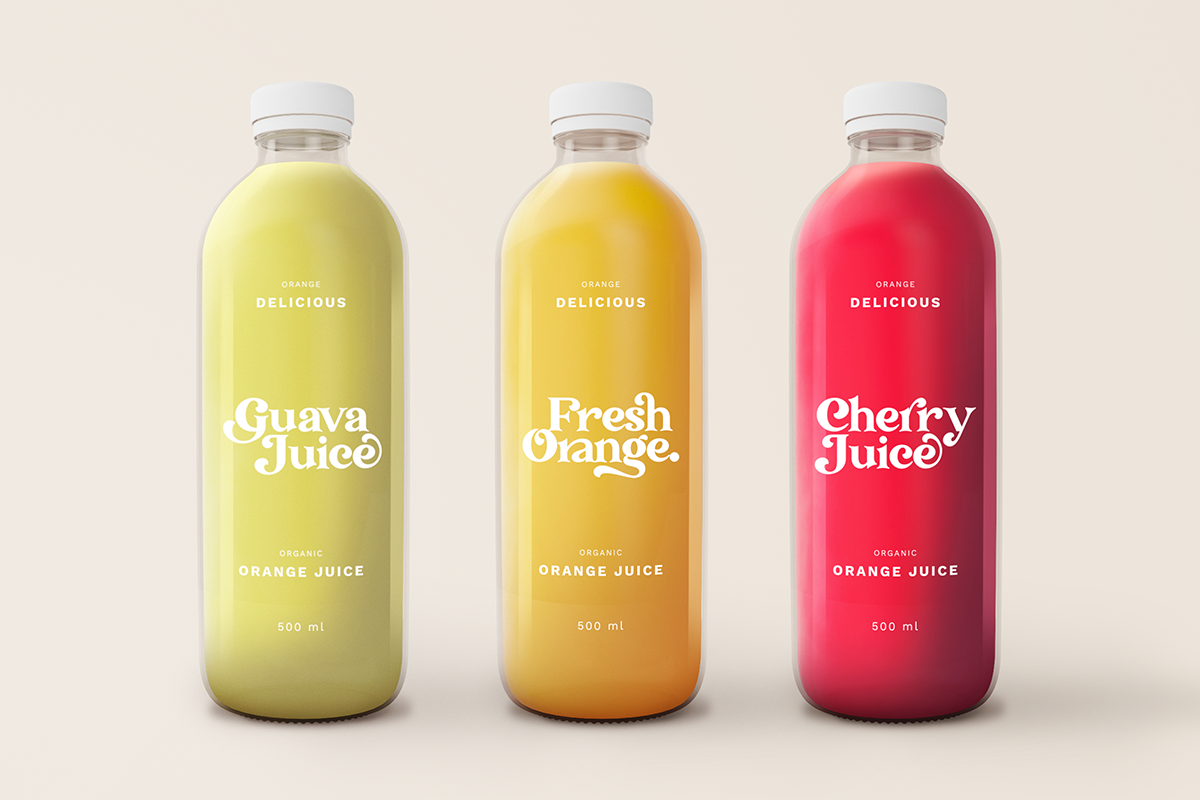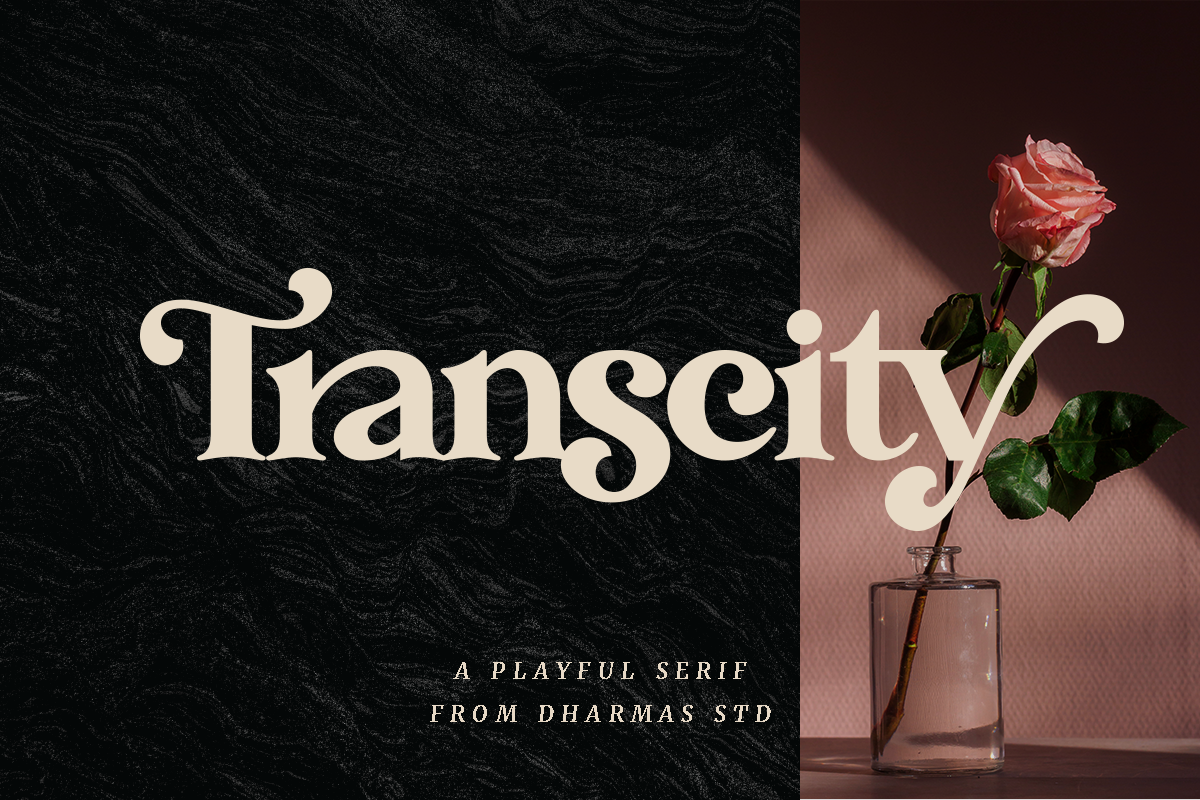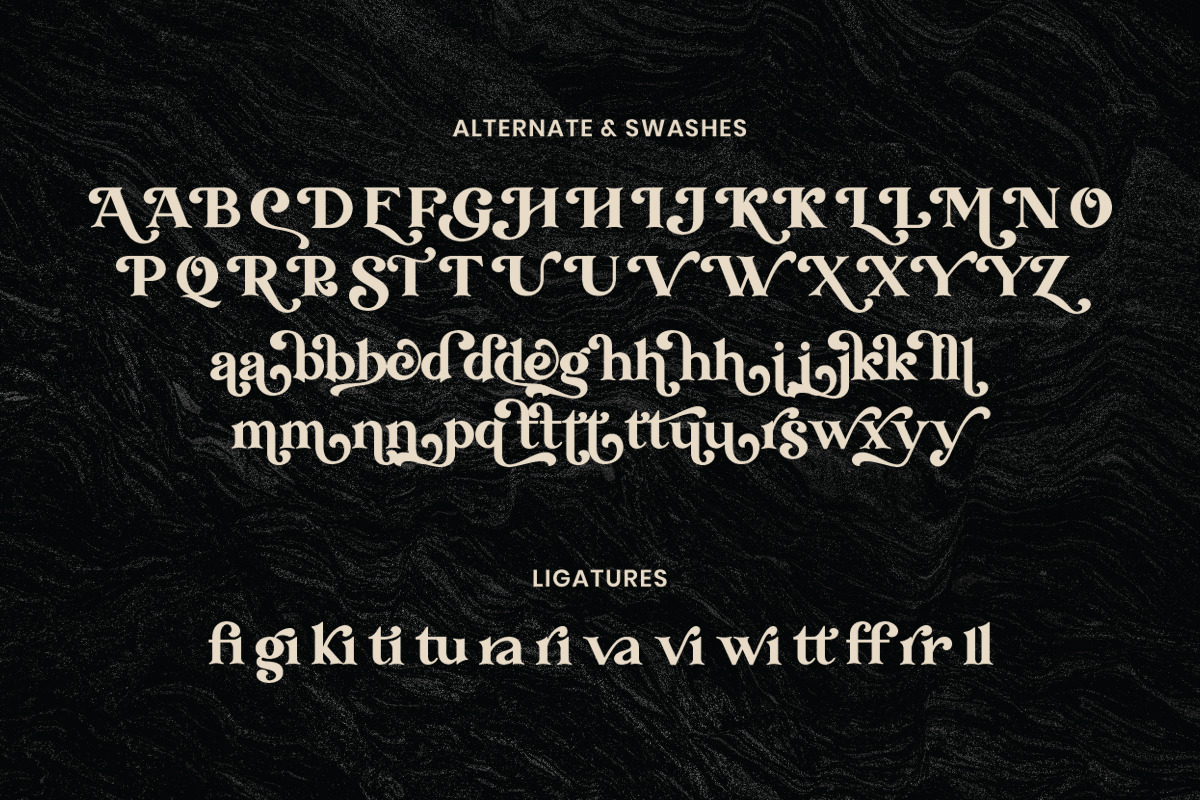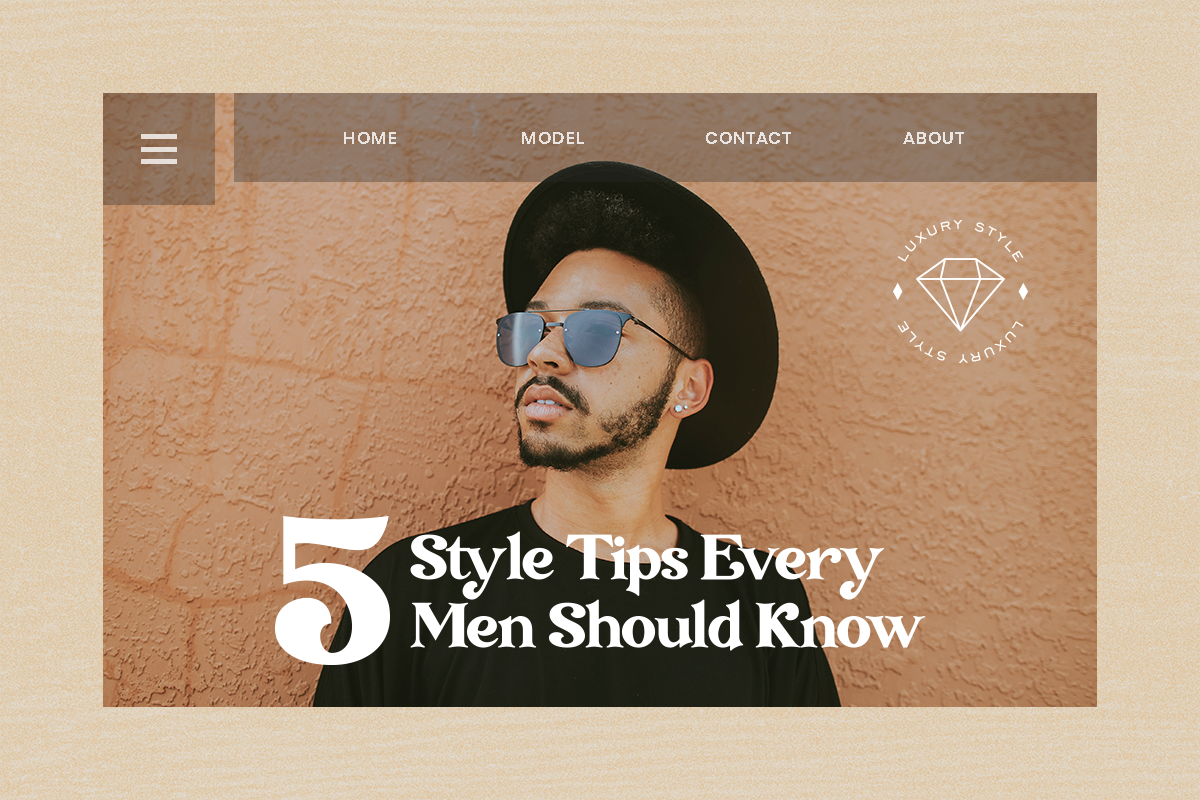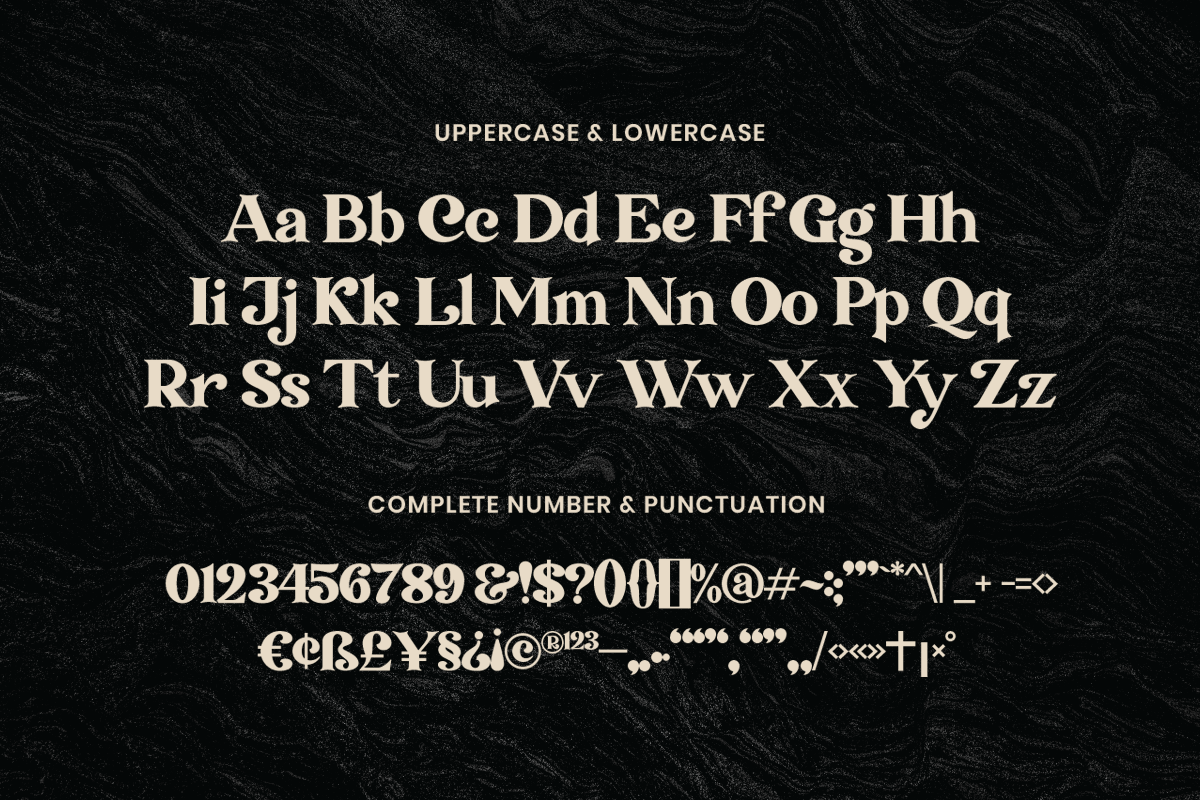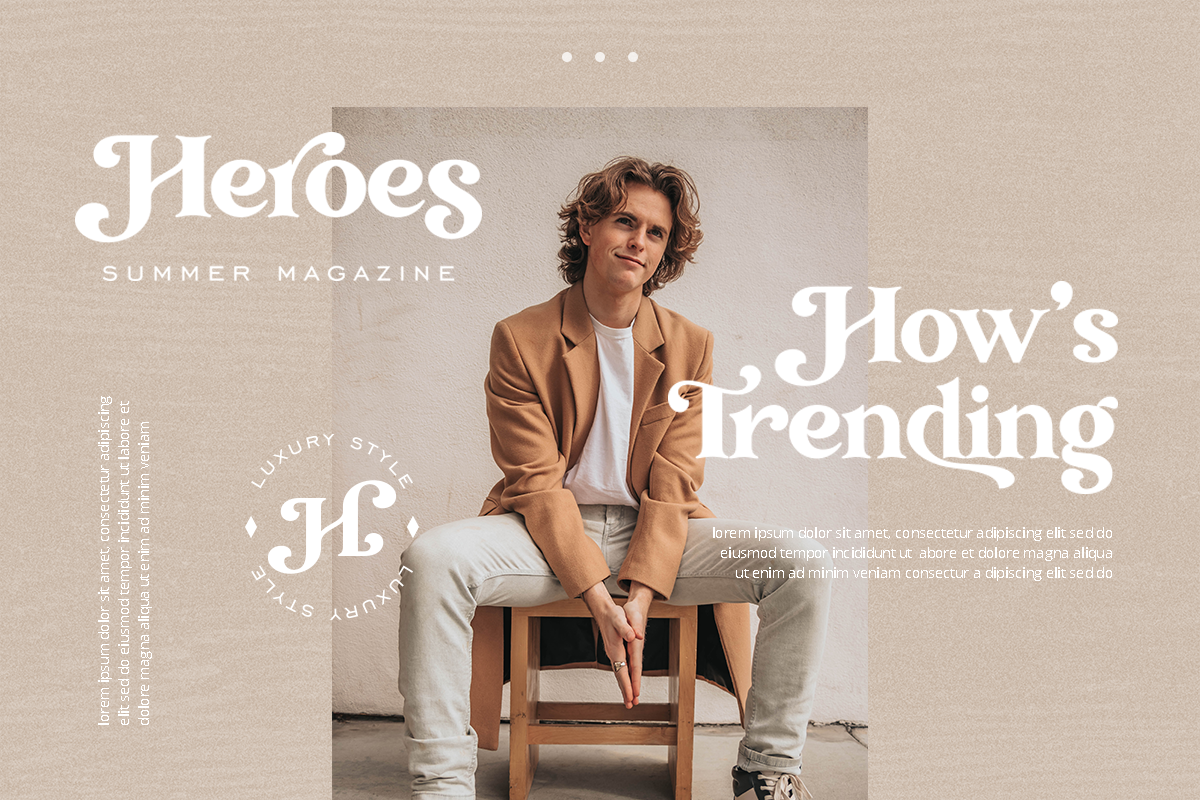
Transcity - A Playful Serif
Transcity is a serif display font designed for logos, branding, packaging, editorial layouts, social media graphics, and marketing materials. With more than 100 decorative swashes, multilingual support, and PUA encoding, it provides flexible typography for creating brand identities, product packaging, restaurant and café branding, invitations, book covers, labels, and digital content.
Transcity Font Features:
1 Style: Regular
90+ Swash, Alternate and Ligatures
Letters, numbers, symbols, punctuation, special alternates
PUA Encoded Characters, fully accessible without additional design software
Multilingual Characters available for:
Afrikaans, Albanian, Asu, Basque, Bemba, Bena, Breton, Chiga, Cornish, Dutch, English, Estonian, Filipino, Finnish, Friulian, Galician, German, Gusii, Indonesian, Irish, Italian, Kabuverdianu, Kalenjin, Kinyarwanda, Luo, Luxembourgish, Luyia, Machame, Makhuwa-Meetto, Makonde, Malagasy, Manx, Morisyen, North Ndebele, Nyankole, Oromo, Portuguese, Quechua, Romansh, Rombo, Rundi, Rwa, Samburu, Sango, Sangu, Scottish Gaelic, Sena, Shambala, Shona, Soga, Somali, Spanish, Swahili, Swedish, Swiss.